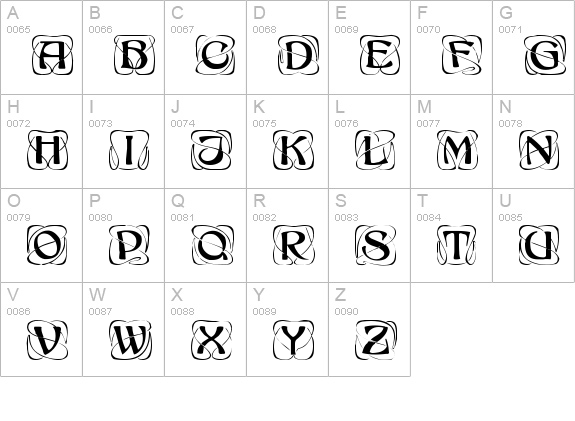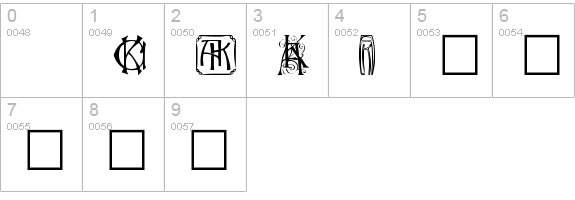
KonanurKaps Kaps:001.001 Font Details
KonanurKaps Kaps:001.001 is a unique and stylish font that will add a touch of creativity to your designs. This font exudes a modern and elegant aesthetic, making it perfect for various projects such as logos, branding, posters, and more. Its bold and eye-catching appearance will surely make your text stand out. The best part about KonanurKaps Kaps:001.001 font is that it is completely free to download at FontsMarket.com. This means you can easily access this beautiful font without any cost and use it in your projects right away. Don't miss out on the opportunity to enhance your designs with this stunning font that is just a click away. Download KonanurKaps Kaps:001.001 font today and elevate your creative projects to new heights!